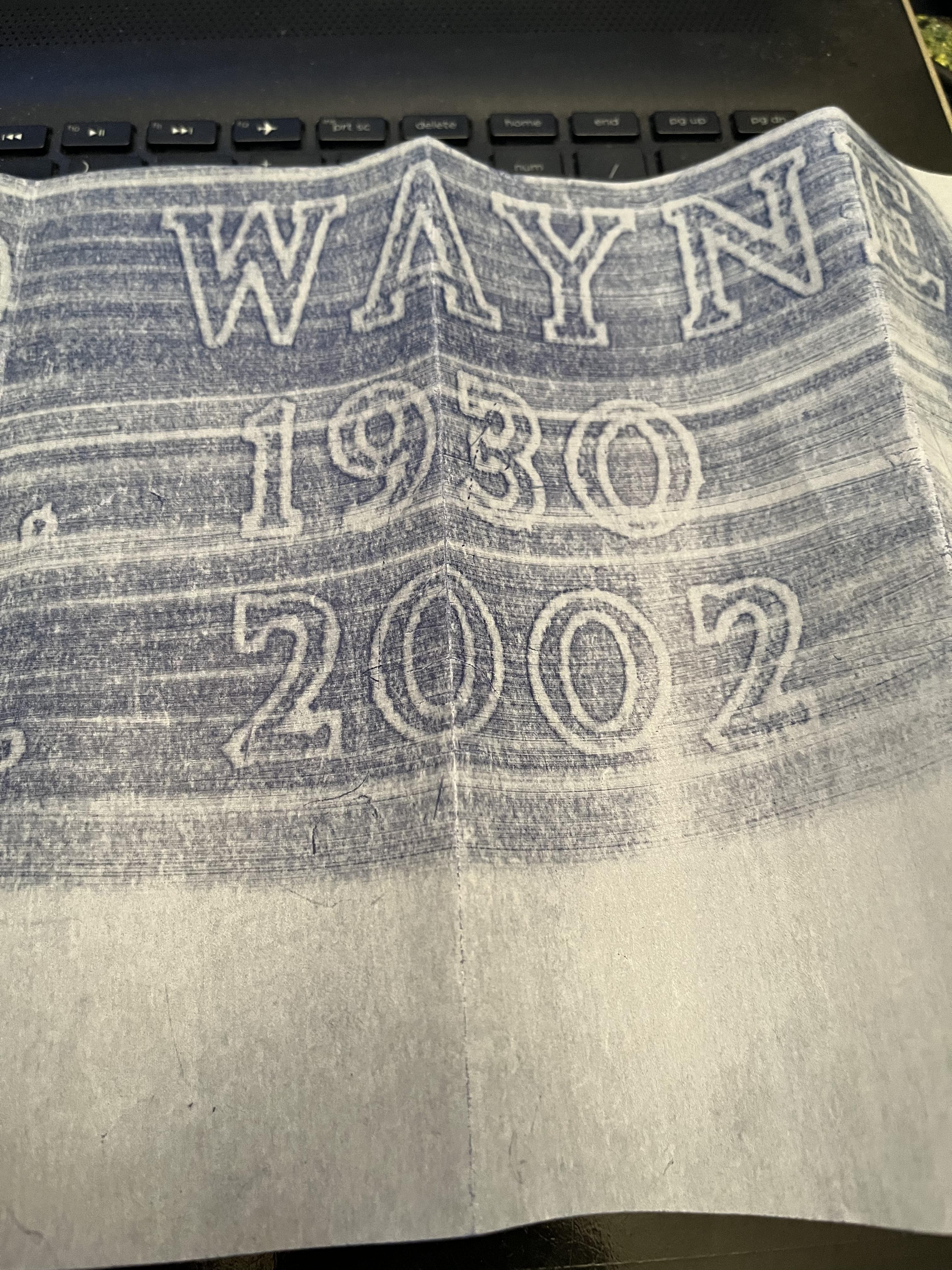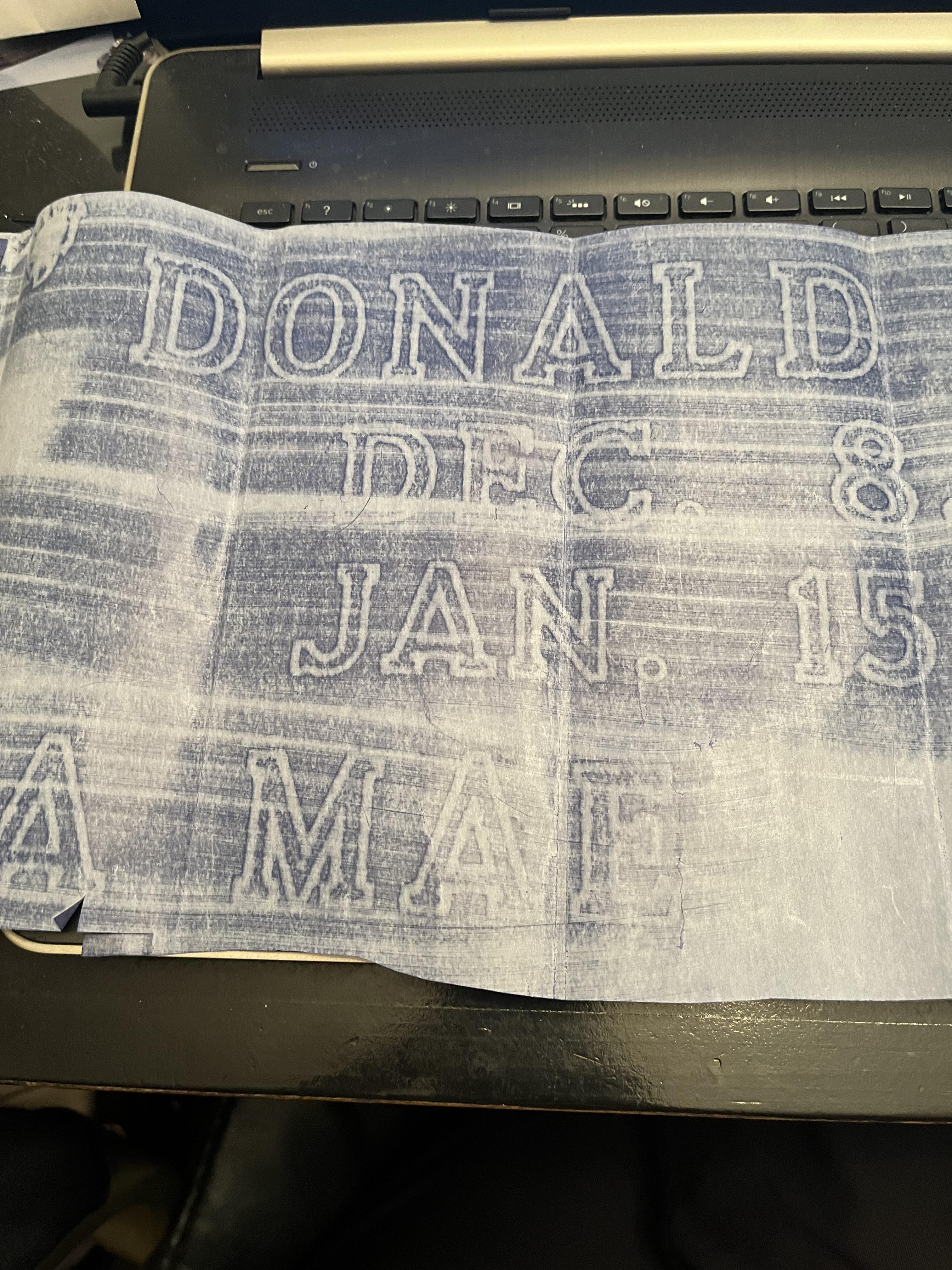
So I thought this was Monucad’s outline Roman but the “M” doesn’t match and the “O” is to wide. Any ideas of what this could be. Thanks for any help you can offer.
Hi Jill, the dates appear to be the SKS Double Outline, but the names appear to be a Modified Roman which has been outlined and modified with lower crossbars on the ‘A’ to match more closely to the dates. There is also no version of the SKS Double Outline that has straight vertical bars on the ‘M’, nor do they have an angled serif on the base of ‘E’ or an ‘O’ with the shape as on the rubbing. I’ve also not seen anything available in any memorial design software that is similar to the font used on the names.